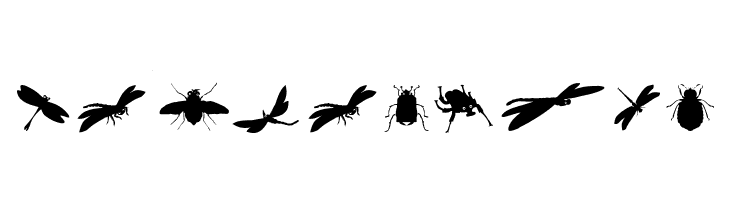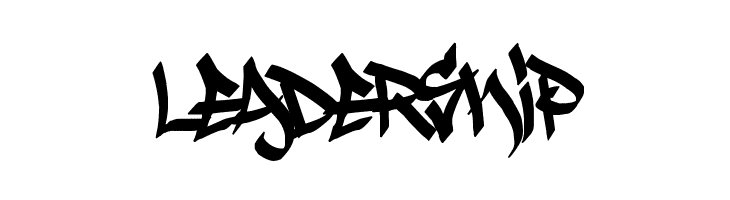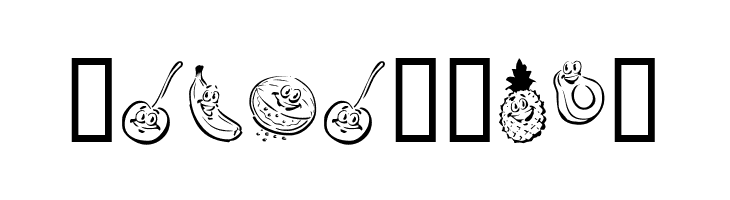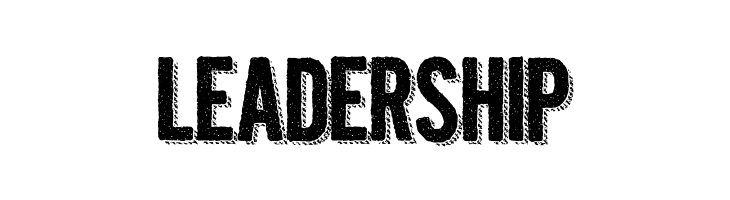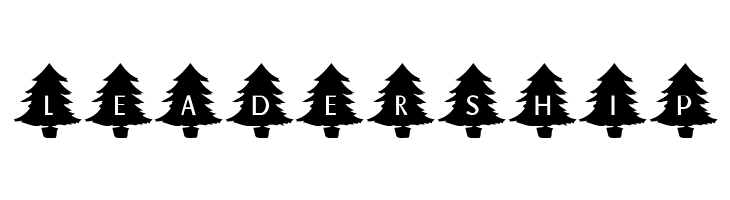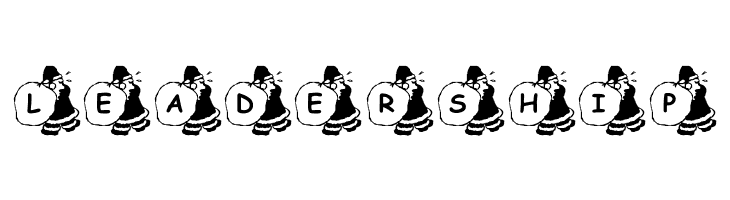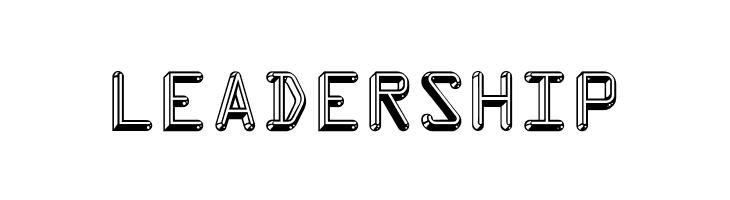
A playful, textured font with a frosted, hand-drawn appearance.
Hand-drawn fruit illustrations replace letters and numbers.
Hand-drawn fruit illustration dingbat font.
A whimsical, cartoonish font featuring playful fruit characters.
A playful, decorative font featuring whimsical fruit characters.
A collection of decorative holiday-themed frames with intricate designs.
A playful, puzzle-themed decorative font with bold, uppercase letters.
A playful, puzzle-themed decorative font with bold, eye-catching characters.
A decorative dingbat font featuring Christian-themed icons.
A festive font with letters embedded in Christmas tree silhouettes.
A playful, chalkboard-style font with decorative square borders around each character.
A playful, decorative font with characters enclosed in textured squares, ideal for creative projects.
A decorative script font with scalloped frames around each character.
A decorative font with St. Patrick's Day-themed frames and festive designs.
The image displays decorative frames, not a font.
A whimsical and decorative font with ornate swirls and star embellishments.
A decorative dingbat font featuring insect and bug silhouettes.
A bold, textured font with a distressed, handcrafted appearance.
A bold, decorative blackletter font with intricate details and historical flair.
A whimsical and abstract decorative font with thin lines and bold dots.
A classic serif font with elegant strokes and balanced readability.
An elegant italic font with smooth curves and moderate contrast.
A playful, hand-drawn font with irregular, energetic strokes.
A modern, rounded font with consistent stroke thickness and a playful aesthetic.
A bold, flowing script font with a dynamic, handwritten style.
A modern, geometric font with sharp angles and a technical appearance.